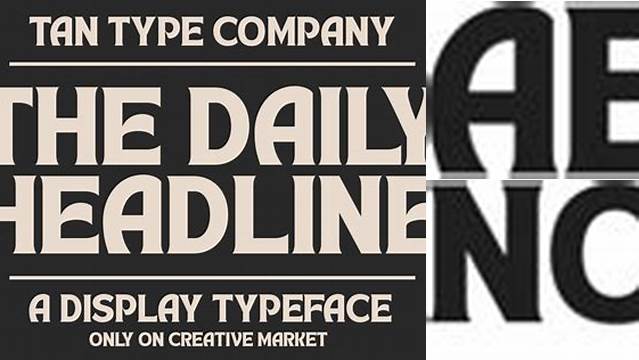
Tan Headline Regular OTF Font: Your Gateway to Captivating Typography
Hey guys, are you looking to give your designs a real boost? Do you want a font that's both striking and versatile? Well, look no further because we're diving deep into the world of Tan Headline Regular OTF, a font that's quickly becoming a favorite among designers worldwide. This article is your ultimate guide, covering everything from where to download it for free to how to use it effectively in your projects. We will cover everything you need to know about Tan Headline Regular OTF font free download, including its features, design inspirations, and practical applications. Ready to transform your text into a visual masterpiece? Let's get started!
What Makes Tan Headline Regular OTF Font Stand Out?
Tan Headline Regular OTF isn't just another font; it's a statement. Its bold, modern design makes it perfect for headlines, titles, and any other text that needs to grab attention. The font's clean lines and strong presence ensure your message is clear and impactful. One of the most appealing aspects of Tan Headline Regular OTF font free download is its versatility. Whether you're working on a sleek website, a vibrant poster, or a sophisticated branding project, this font adapts seamlessly. Its readability at various sizes makes it a practical choice, allowing you to maintain consistency across different platforms and mediums. The designers behind this font have truly crafted a gem, combining aesthetics with functionality. Furthermore, it's not just about the look; it's about the feeling. Tan Headline Regular OTF evokes a sense of confidence and modernity, instantly elevating the perceived value of your design. The careful balance between boldness and elegance means it's suitable for a wide range of applications, from corporate communications to creative campaigns. Its character set supports various languages, ensuring that it's a globally applicable asset. This global compatibility expands your design's reach, allowing it to resonate with a broader audience. The font's structure also contributes to its user-friendliness. The characters are well-defined, ensuring that the text remains legible even when it's used in smaller sizes or on low-resolution screens. This is a crucial factor for digital design, where adaptability is key. The attention to detail in the design of each character showcases the dedication of the font creators. The uniform stroke weights and the perfect balance of negative space in each glyph contribute to the font's stunning visual appeal. It’s a font that works equally well in both digital and print formats. The sharp, clear lines that make it so effective on screen translate perfectly to paper, making it a great choice for brochures, magazines, and other printed materials.
Design Inspiration and How to Use Tan Headline Regular OTF
So, how can you make the most of Tan Headline Regular OTF in your designs, you ask? Let's get the creative juices flowing! This font is a superstar when it comes to crafting eye-catching headlines. Use it for your website headers, creating titles that are impossible to miss. The boldness of Tan Headline Regular OTF ensures that your key messages immediately capture the viewer's attention. It's also perfect for posters and flyers. A well-designed poster with Tan Headline Regular OTF can make a significant impact, whether you’re promoting an event, a product, or a service. The font's inherent visual weight will help it stand out from the background, ensuring your message gets delivered. In branding, Tan Headline Regular OTF can create a strong and memorable identity. Using it for your logo or tagline adds a sense of modernity and sophistication. When you combine the font with the appropriate color palette, you can create a brand that is instantly recognizable and trustworthy. Remember that it's essential to consider how Tan Headline Regular OTF interacts with other elements in your design. Pair it with a more subtle font for body text to create a contrast that is both functional and visually appealing. Experiment with different font sizes and weights to achieve the desired visual hierarchy. Remember, the choice of font should always complement the overall design and message. To get your creative juices flowing, check out design websites like Behance or Dribbble. These platforms are filled with projects that use Tan Headline Regular OTF font free download, giving you a visual cue on how to best use it in different projects. The possibilities are endless! Use it in a minimalist design for maximum impact, or combine it with vibrant colors for a bold statement. To maximize its effectiveness, combine it with a solid background. The strong visual lines of the font will stand out and provide the reader with a clear message. And don't be afraid to play around with different effects, like shadows and outlines, to add depth and dimension to your text. This versatility makes it an excellent choice for a wide array of projects. So, whether you’re a seasoned designer or just starting out, Tan Headline Regular OTF font free download is a fantastic addition to your toolkit.
Tips and Tricks for Using Tan Headline Regular OTF Effectively
Want to take your Tan Headline Regular OTF game to the next level? Here are some pro tips. First, keep it simple. The beauty of Tan Headline Regular OTF lies in its simplicity. Avoid overcrowding your design with too many elements. Let the font speak for itself. Try experimenting with kerning and leading. Kerning refers to the space between individual letters, and leading refers to the space between lines of text. Fine-tuning these settings can significantly impact readability and visual appeal. These little tweaks can go a long way in refining your design. Consider the color palette. The color of your text is crucial for its impact. Use colors that complement the font and the overall design. For instance, black or dark gray text on a light background often makes a bold statement. However, for a more modern feel, try a vibrant color on a neutral background. You can also make great use of negative space. Don’t be afraid to leave some breathing room around your text. It will help the text stand out and create a more balanced design. Remember that less is often more! When in doubt, keep it clean and concise. Test your design across different devices and platforms. What looks great on your desktop may not look so great on a mobile device. Ensure your design is responsive and looks good in different sizes and orientations. Always prioritize legibility. The goal is to make the text readable, so the audience can understand your message. Ensure the contrast between the font color and the background is sufficient. Avoid using light-colored text on a light-colored background, and vice versa. It is very important to proofread your text. Typos or grammatical errors will detract from your design, no matter how visually stunning the font is. This is why it is super important to proofread your text carefully to avoid silly mistakes. Use the font sparingly, and make sure to pick this font when a bold headline needs to be highlighted in your projects. And remember, practice makes perfect! The more you work with Tan Headline Regular OTF font free download, the more comfortable and creative you’ll become.
Conclusion: Embrace the Power of Tan Headline Regular OTF
Alright, guys, that's a wrap on Tan Headline Regular OTF! We've covered everything from where to find it to how to make it shine in your designs. This font is a fantastic tool for anyone looking to create visually striking and effective designs. With its bold and modern style, and versatility, it's perfect for headlines, titles, and branding. Remember to download it from reliable sources, understand the license agreements, and practice the tips we discussed to make the most of this amazing font. So go ahead, give Tan Headline Regular OTF font free download a try, and watch your designs transform. Happy designing!